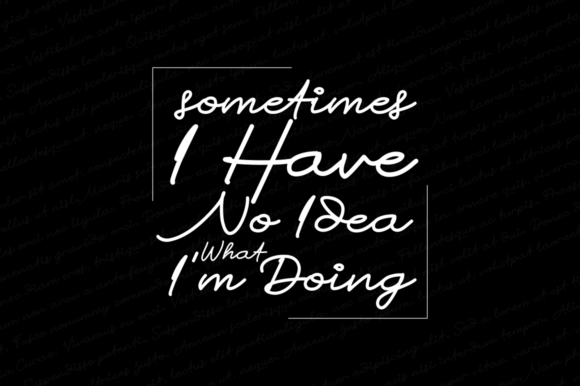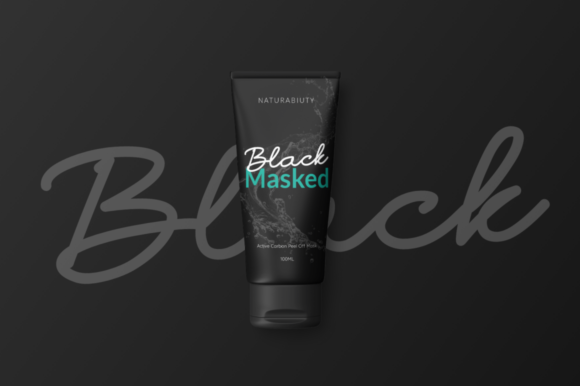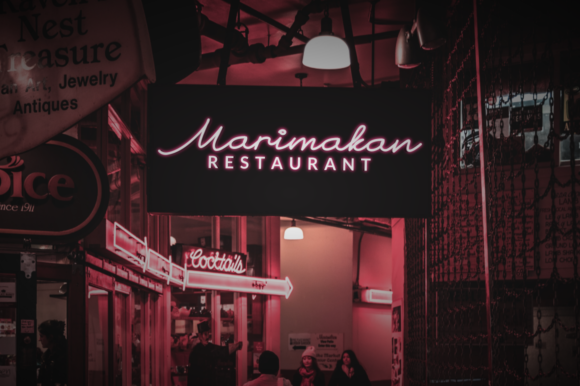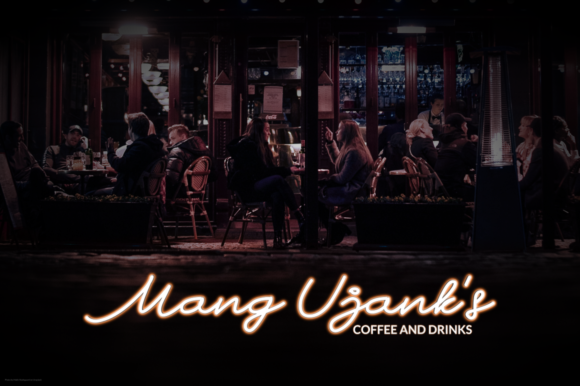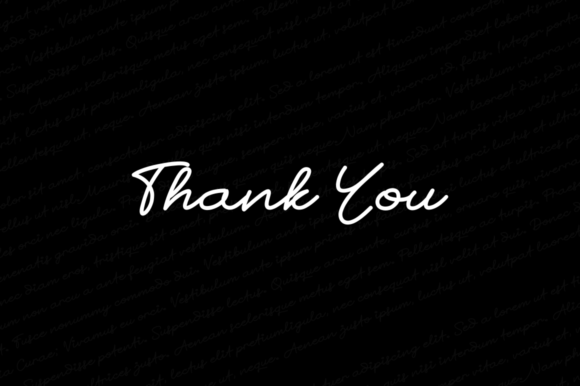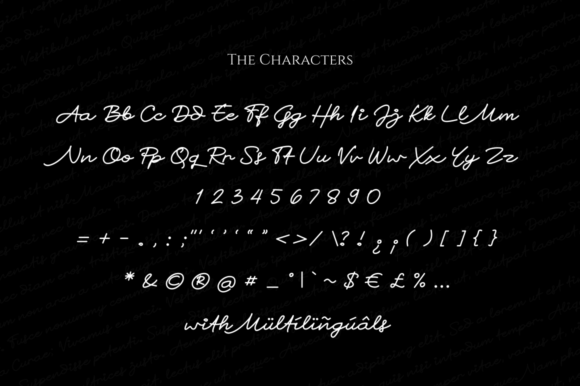
Alternative Line Font
About Alternative Line Font
Alternative Line is a monoline script font with cursive style, as many characters are smoothly connected. This lovely typeface is great for designers who are seeking a natural and authentic style in their creations!